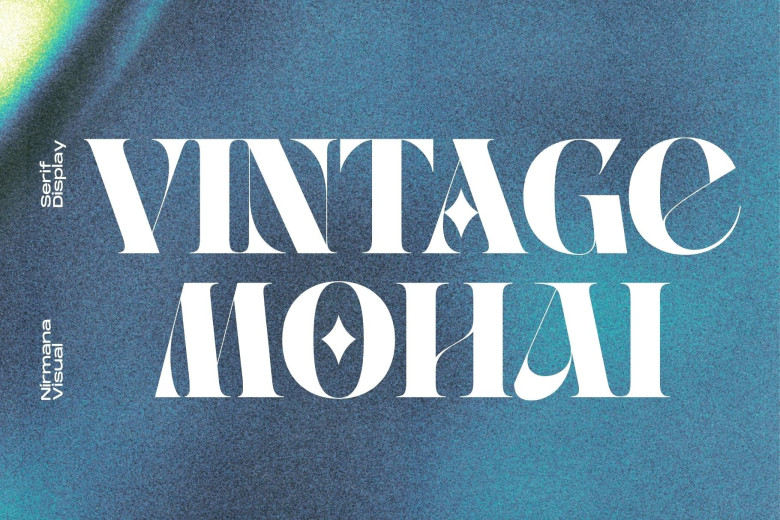
Vintage Mohai Font
Vintage Mohai Inspired by Renaissance Design Era Vintage Retro offers beautiful typographic harmony for a diversity of design projects, including logos & branding, social media posts, advertisements & product designs.
Vintage Mohai Display Font